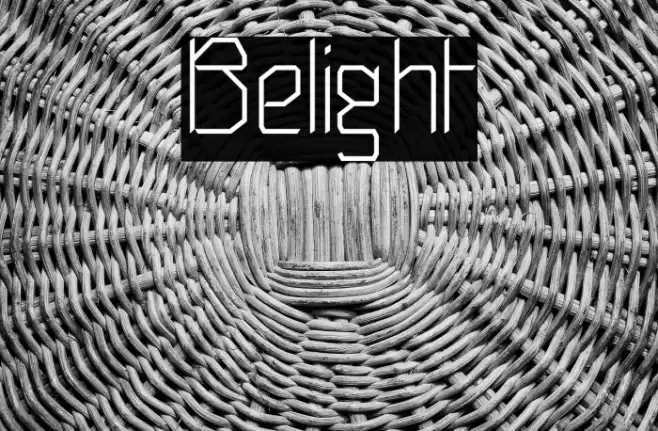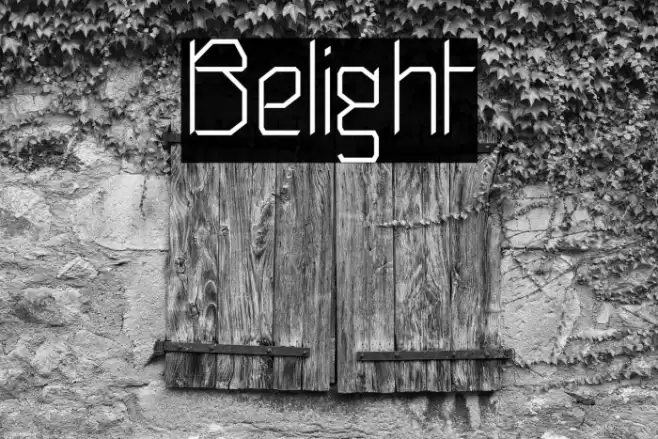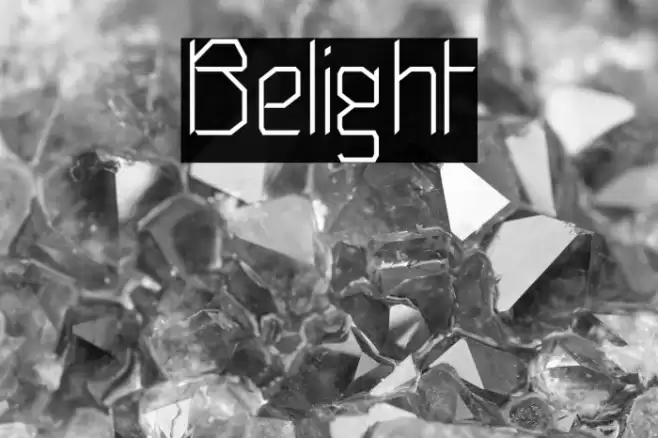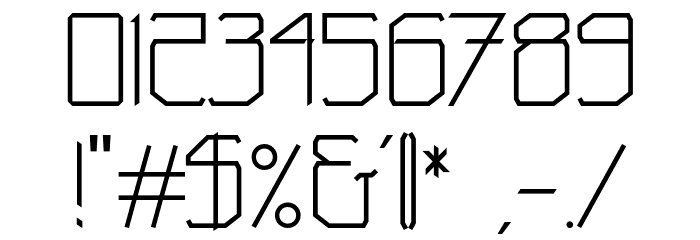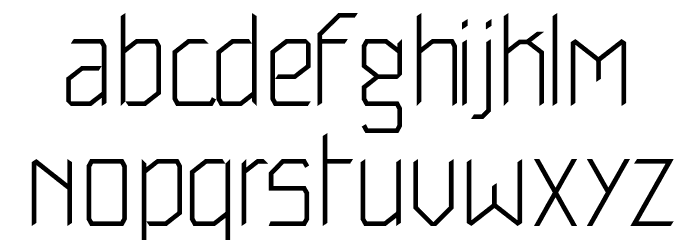
Belight Font
Belight Description
This font features a geometric and angular design, characterized by its sharp edges and linear forms. The uppercase and lowercase letters maintain a consistent height, creating a uniform appearance. The numerals and special characters follow the same angular style, providing a cohesive look across all glyphs. The font's structure is reminiscent of digital or technical designs, with a futuristic and modern aesthetic. Its clean lines and minimalistic approach make it suitable for projects that require a contemporary and edgy feel.
A geometric, angular font with a modern, futuristic aesthetic from Regular fonts.
- Proposed Projects: Ideal for tech-related branding, digital interfaces, modern posters, and futuristic design projects.